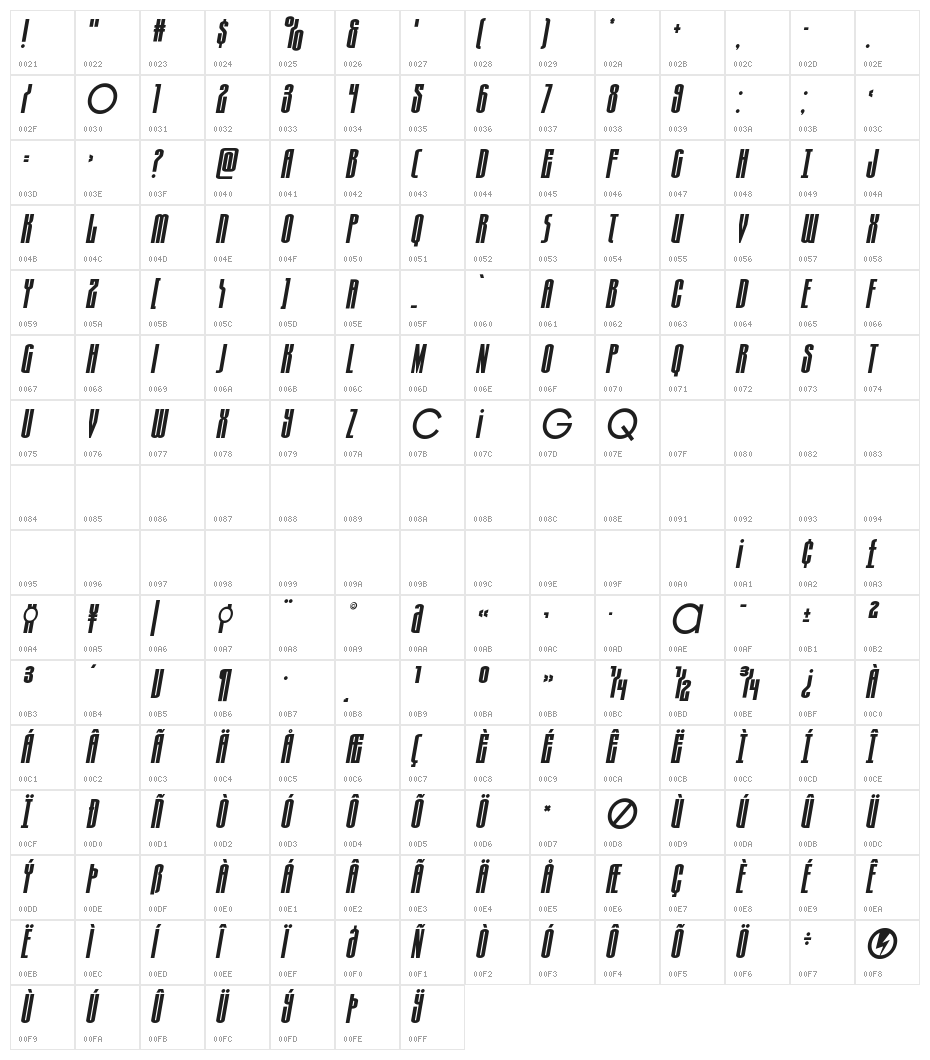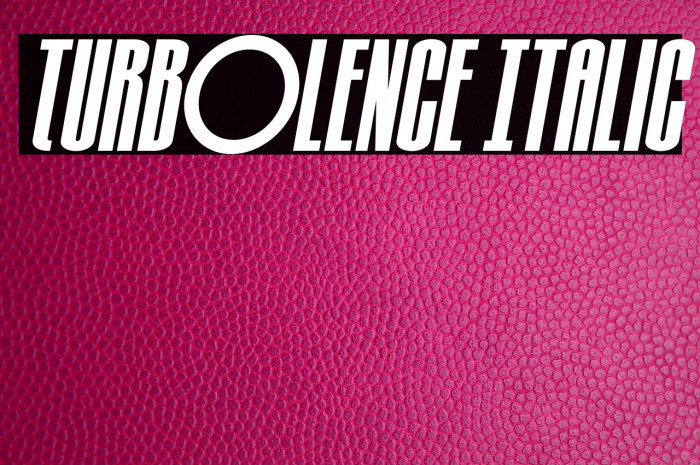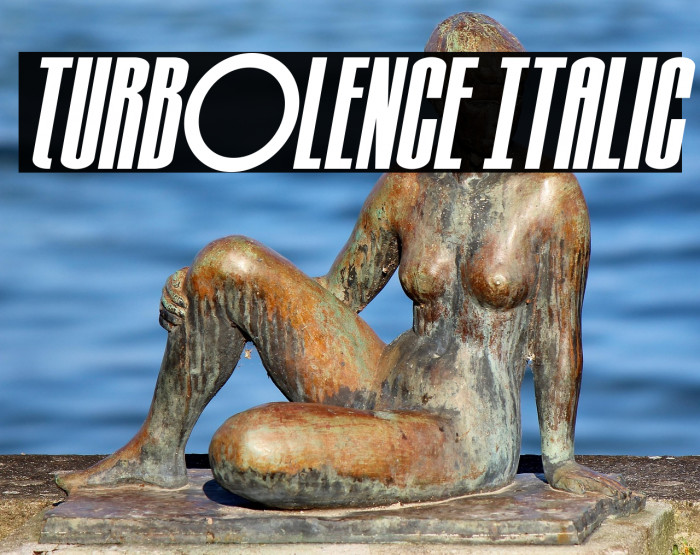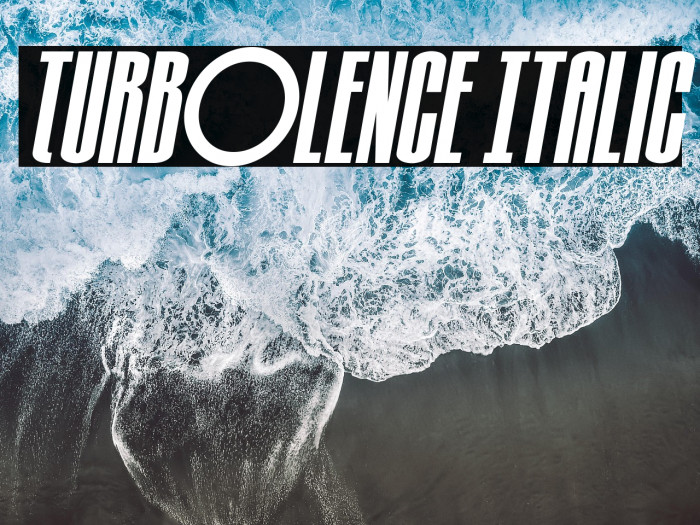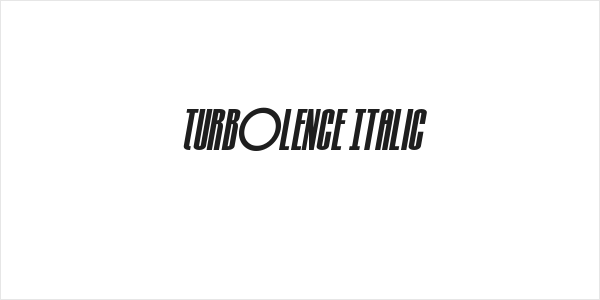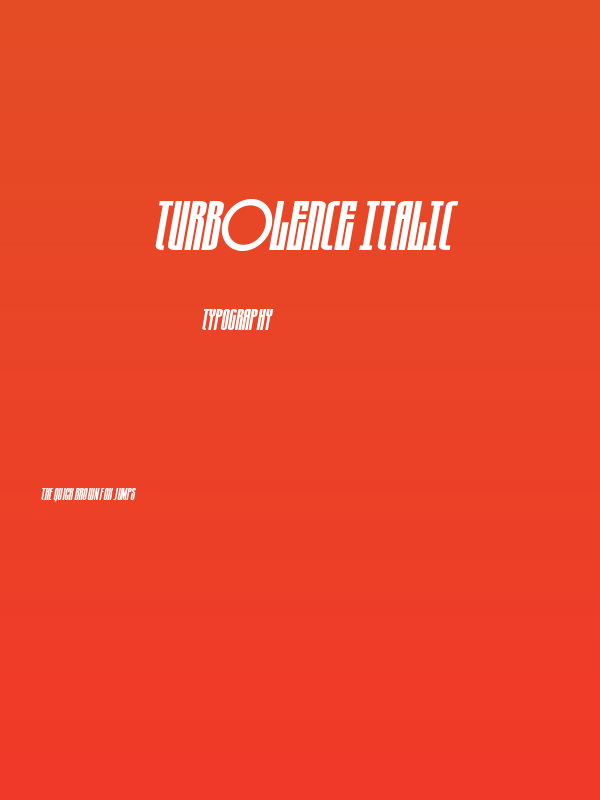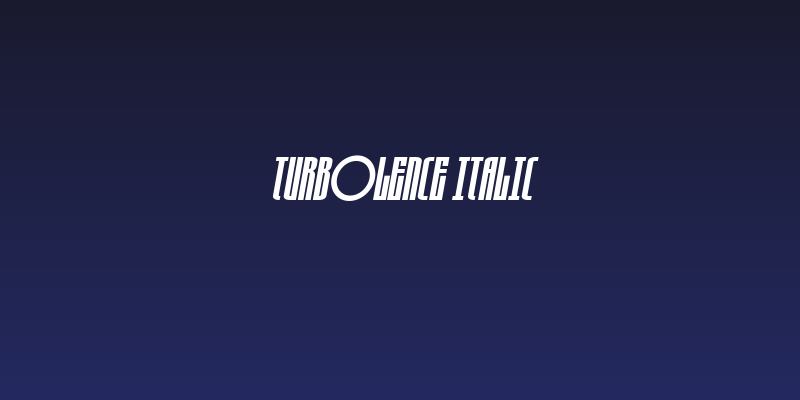
Turb0lence Italic Font
Turb0lence Italic Description
This font features a bold, italicized style with a strong presence and dynamic slant, giving it a sense of motion and energy. The characters are tightly spaced, enhancing its compact and impactful appearance. The uppercase letters are tall and narrow, while the lowercase letters maintain a consistent height, contributing to a cohesive look. The numbers and special characters follow the same bold and italicized design, ensuring uniformity across all elements. This font's high contrast between thick and thin strokes adds to its striking visual appeal, making it suitable for attention-grabbing designs.
| Proposed Projects | Ideal for sports branding, dynamic posters, and modern advertising campaigns. |